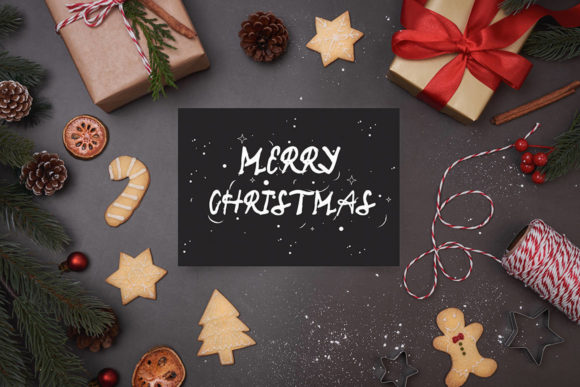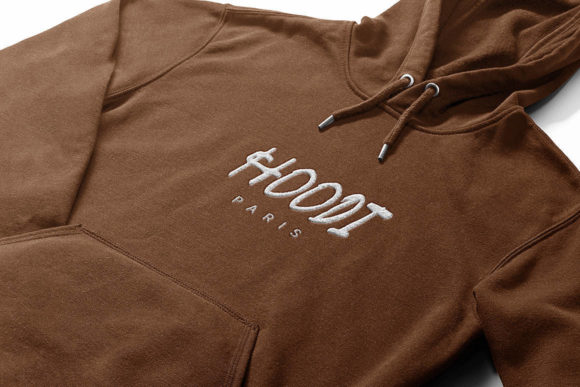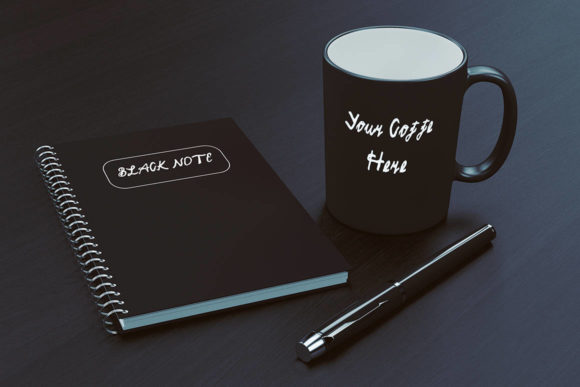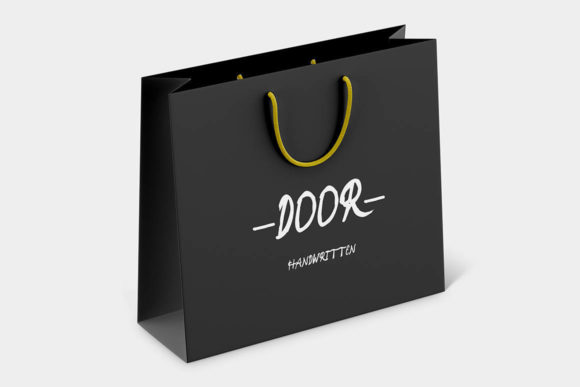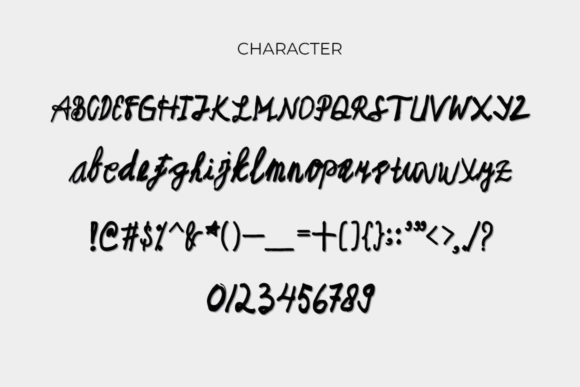
The Enchanting Door Font: A Designer’s Delight
I’ll never forget the time I was working on a wedding invitation project, and my client asked for a font that was “elegant, yet playful.” I scoured the internet, tried countless fonts, but nothing seemed quite right. That was until I stumbled upon the Door Font. ✨ It was love at first sight! The delicate, handwritten strokes and timeless charm instantly won me over. In this article, I’ll share my experience with the Door Font, its features, and how to make the most of it in your designs.
Here’s what I’m obsessed with about the Door Font:
- ✅ Delicate, elegant strokes perfect for wedding invitations, quotes, and greeting cards
- ✨ Timeless charm that suits both modern and vintage designs
- 💕 Versatile and pairs well with a variety of design elements
Now, I’m not going to sugarcoat it – there are a few quirks to be aware of:
- 🤔 Some letters have slightly inconsistent spacing, which may require manual kerning
- ⚠️ Limited availability of stylistic alternates, but what it offers is still impressive
The Story Behind Door Font: Designer Inspiration
The Door Font was designed with love and care by [designer’s name], who aimed to create a timeless, elegant script font that would evoke emotions and add a personal touch to designs. The font’s delicate strokes and classic charm are inspired by traditional calligraphy and handwritten letters.
| Font Name | Door Font |
| Author | naistudio |
| Is Door Font suitable for body text? | While Door Font is highly legible, it’s best suited for headings, titles, and short paragraphs. For longer body text, consider a more traditional serif or sans-serif font. |